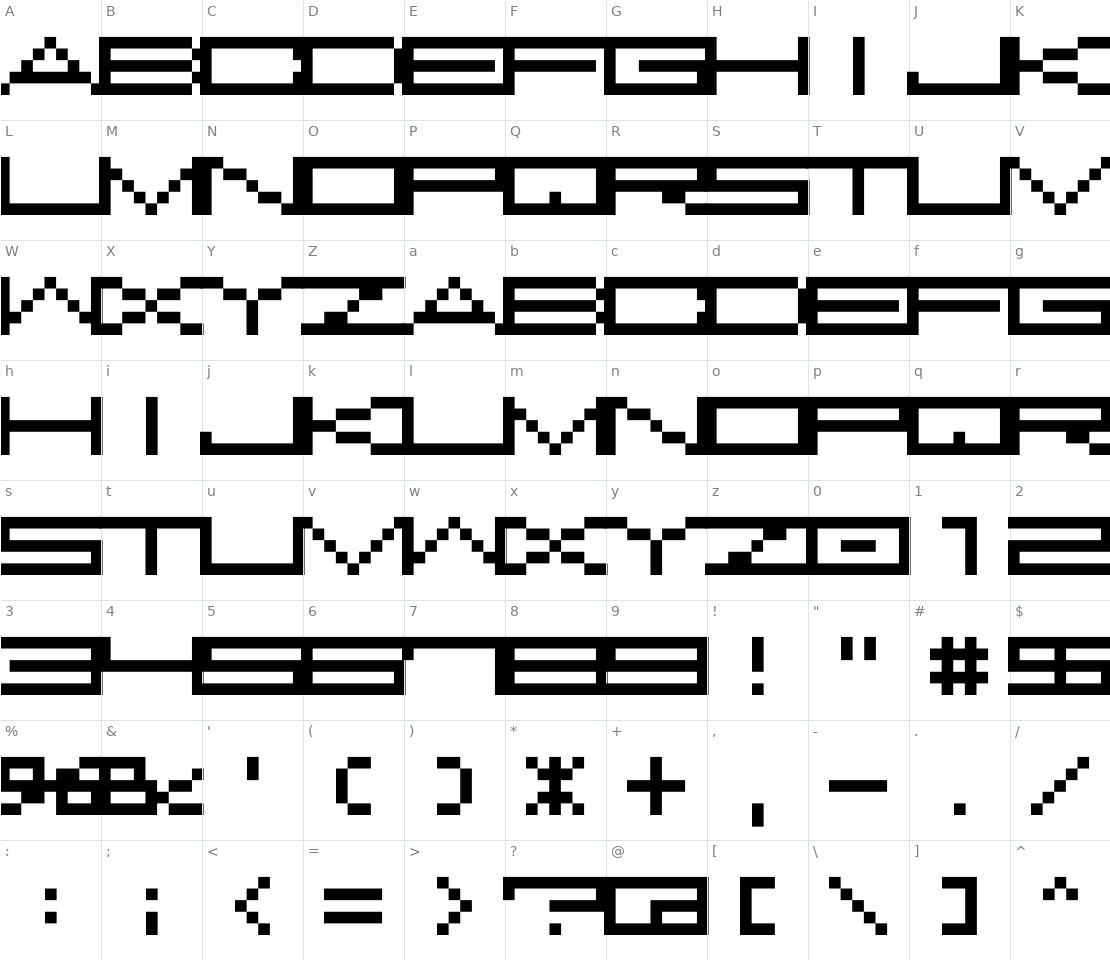
M37 Feel The Bit
M37 Feel The Bit is a pixel bitmap face from Miffies with tight, geometric letterforms built on a rigid grid. Uppercase only, it has that unmistakable 8-bit crunch that reads as both nostalgic and deliberately lo-fi, landing naturally in retro game interfaces, tech-themed graphics, and digital art. Best kept to headlines and display use where the blocky pixel structure stays crisp and intentional.